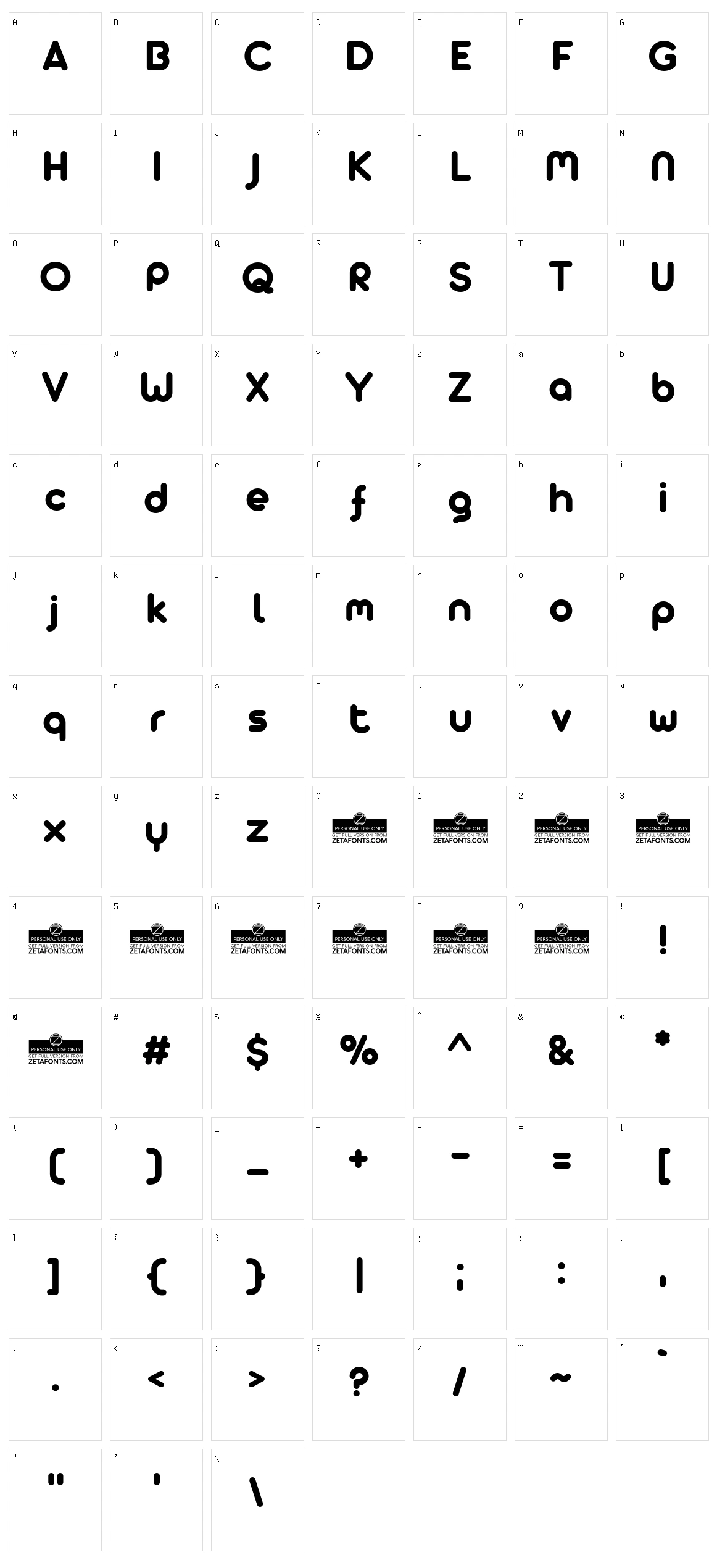
The free font Arista Pro is carefully designed by Zetafonts, showcasing a thoughtful balance of creativity and usability and falls under the Groovy font style. When you download the ZIP file, it contains only 1146.13 KB of font files, making it lightweight and quick to download. Please review the license details below to understand permitted usage and distribution rights. If license information is not available, we recommend using this font for personal projects only or contacting the author directly for commercial usage permissions.